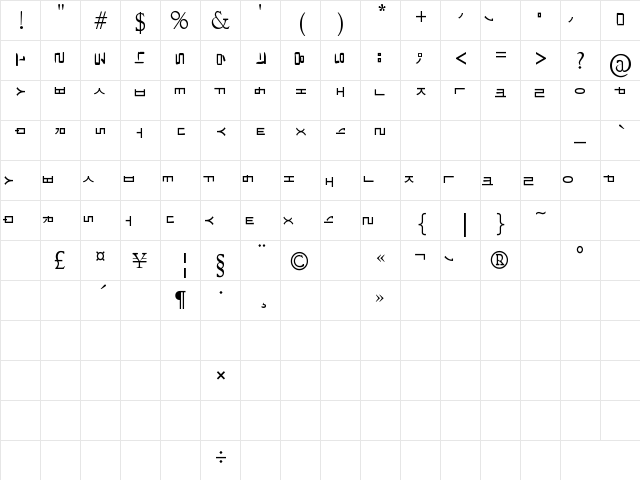
HaNgUl LoVe2 Regular Font Preview
HaNgUl LoVe2 Regular
Design Context for HaNgUl LoVe2 Typeface
HaNgUl LoVe2 offers clean, dependable letterforms without strong stylistic allegiance, making it a practical choice for designers who need flexibility.